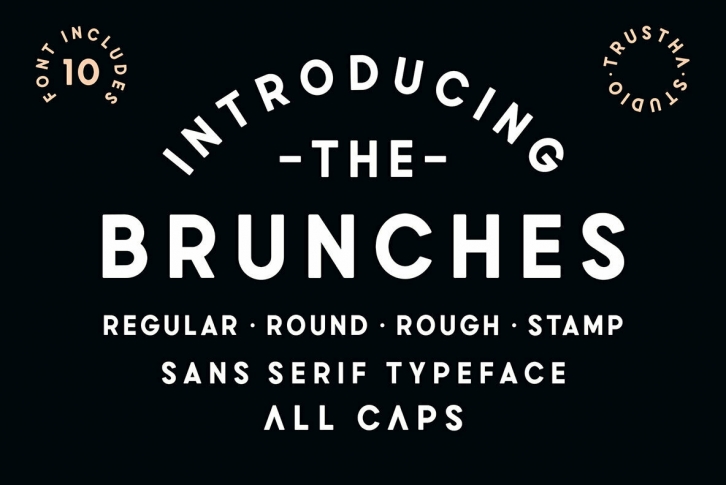
Brunches is a sans serif font with several different styles. Basically this font is designed with geometric principles. There are several choices of styles to choose from as needed. Suitable for all any creative project. Will make each project easier and more colorful because it has several different styles.